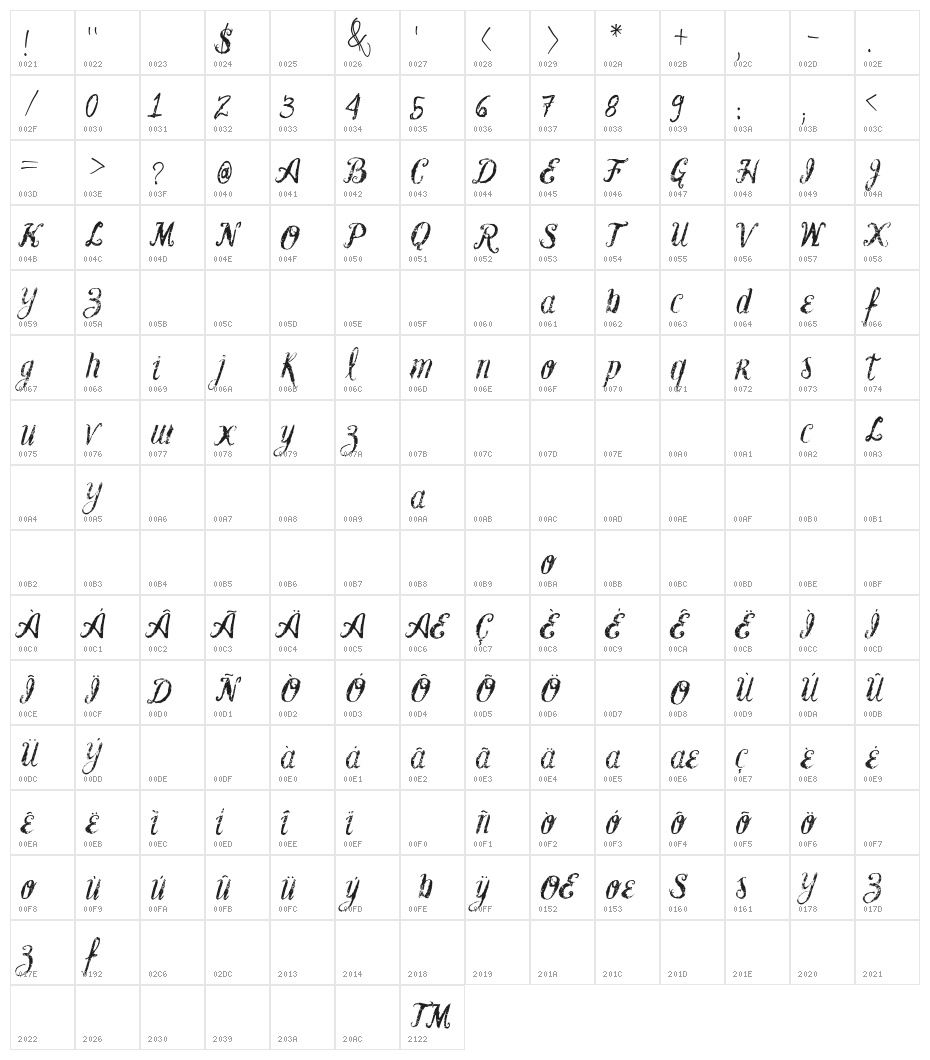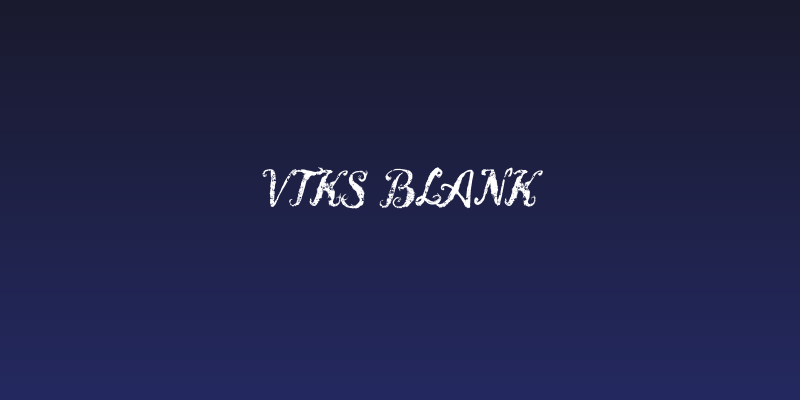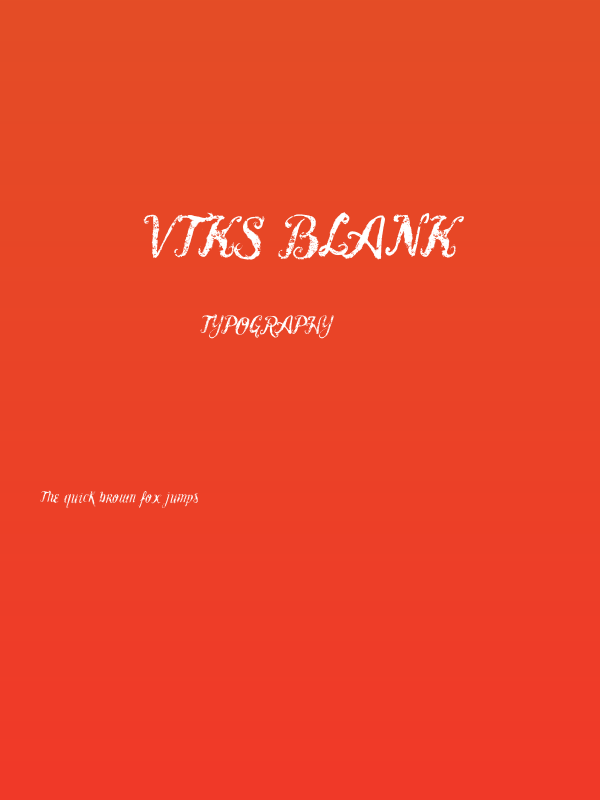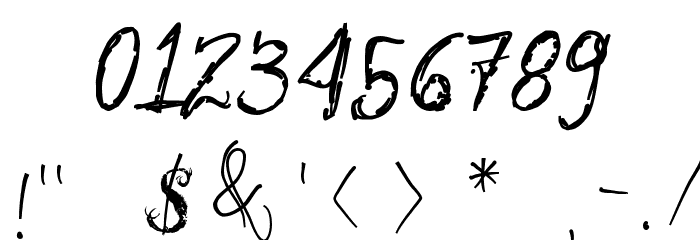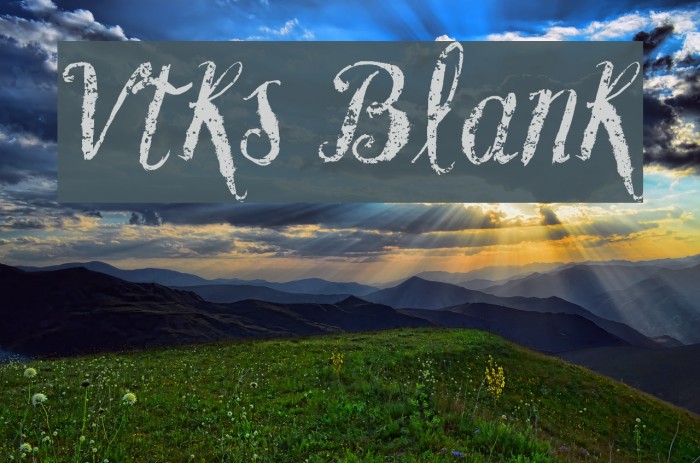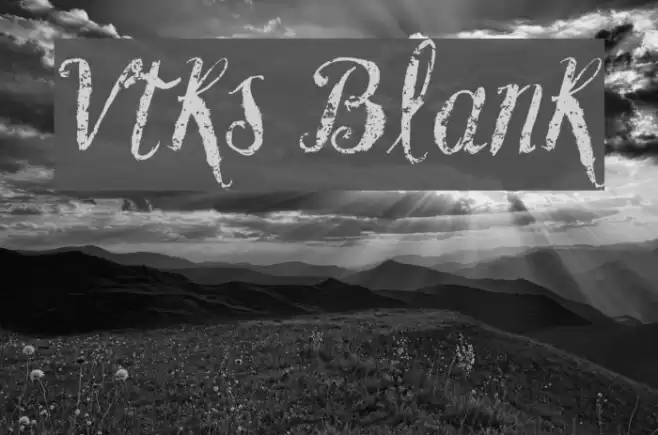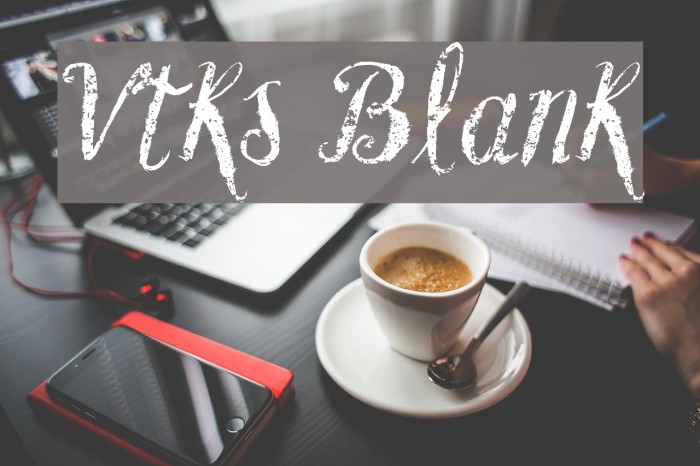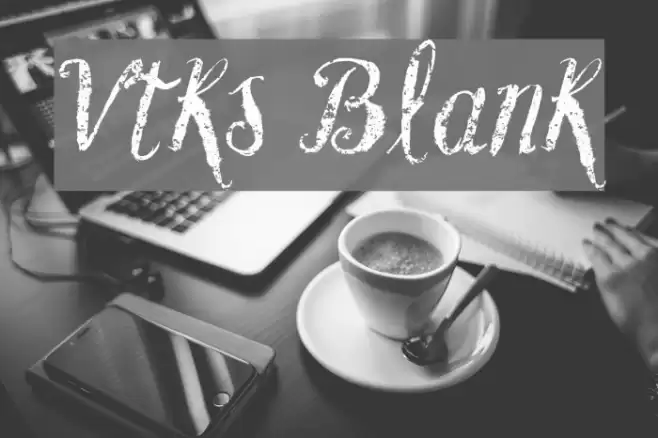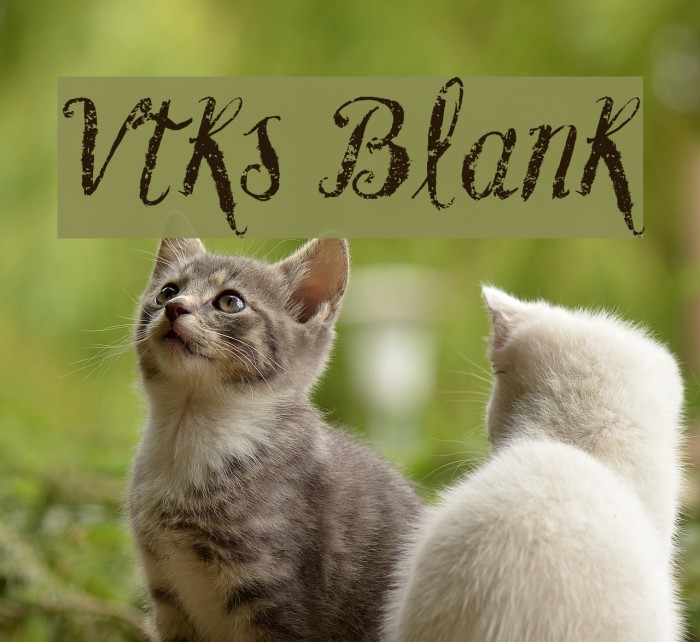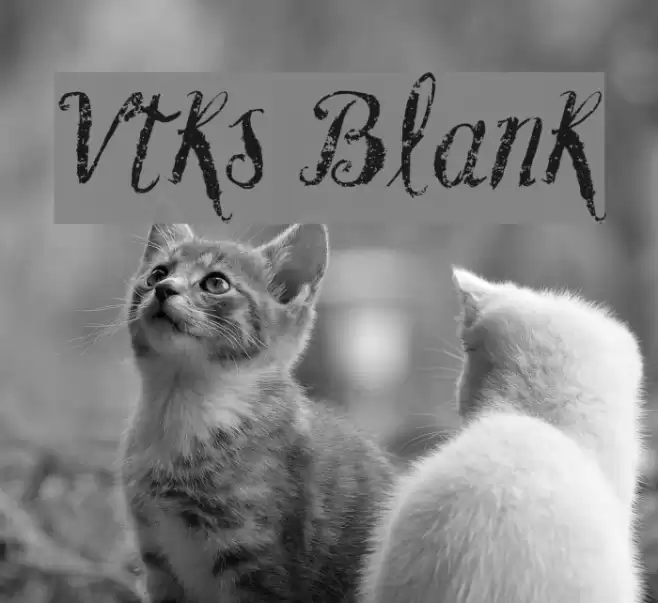
Vtks Blank Font
This font exhibits a distressed, grunge style with a script-like appearance. The characters are bold and feature a textured, worn-out look, giving them a vintage, rugged feel. The uppercase and lowercase letters maintain a consistent style, with swirling, cursive strokes that add a sense of movement and dynamism. Numbers and special characters follow the same aesthetic, ensuring uniformity across all glyphs. The font's unique, artistic flair makes it stand out, ideal for projects that require a bold, eye-catching typeface.
| Overall Style | Vintage, Grunge |
| Proposed Projects | Ideal for album covers, posters, branding materials, and any design requiring a bold, artistic touch. |